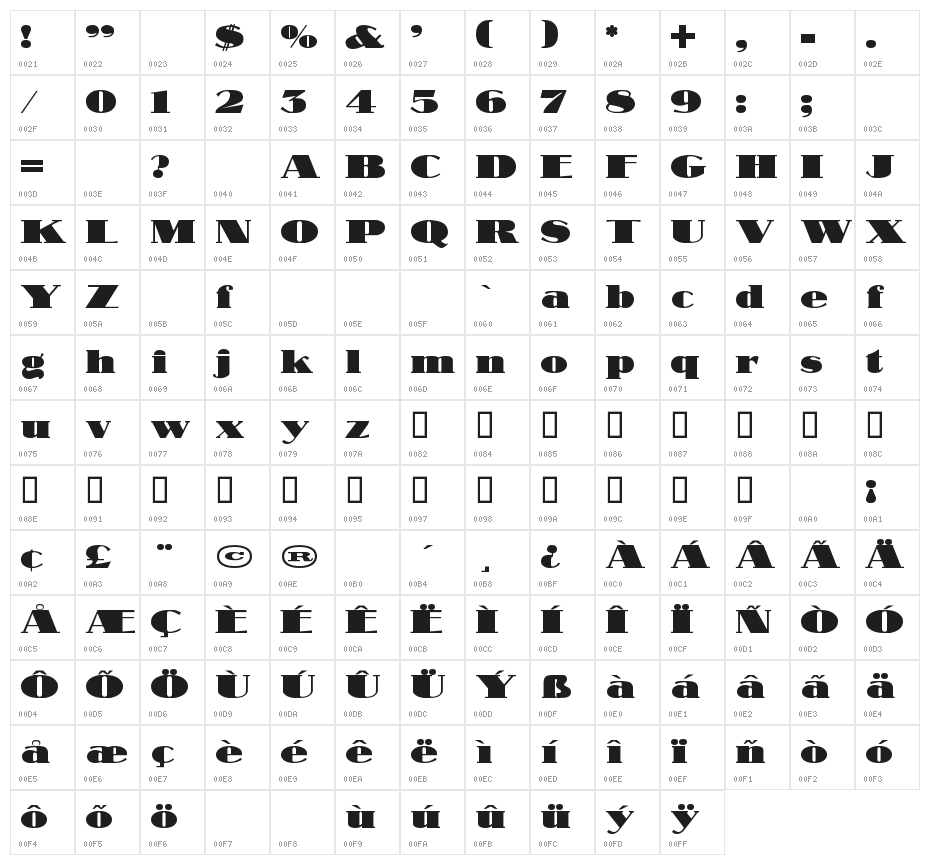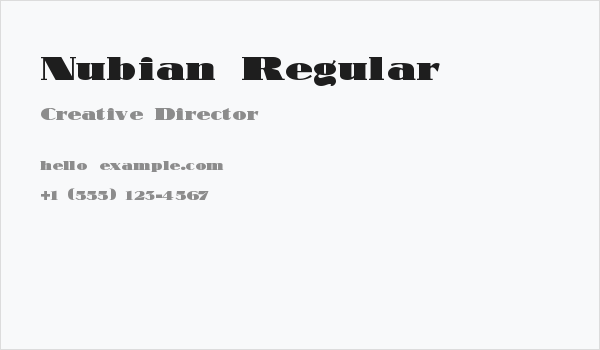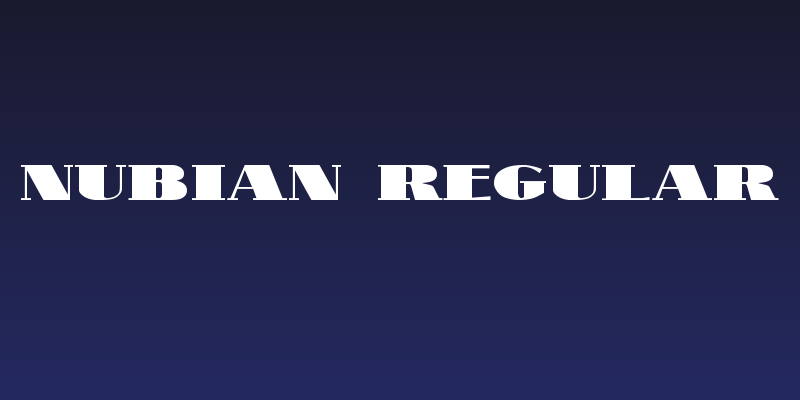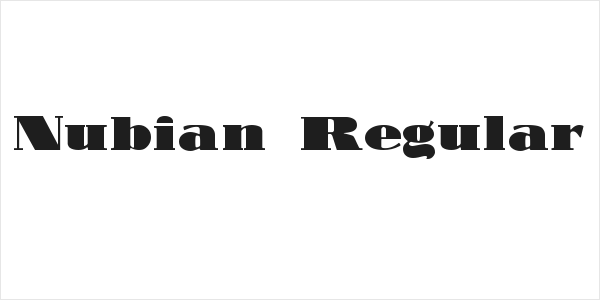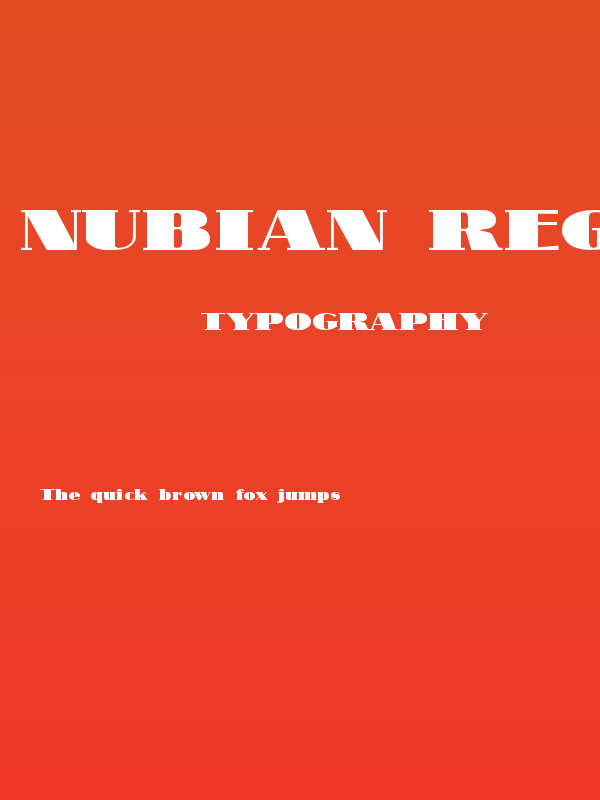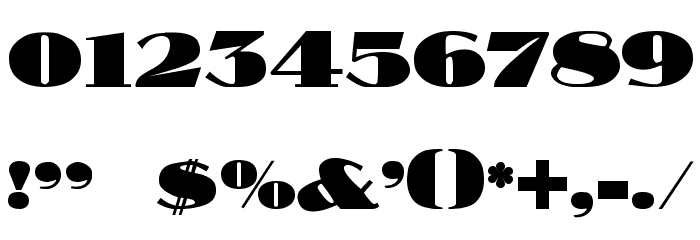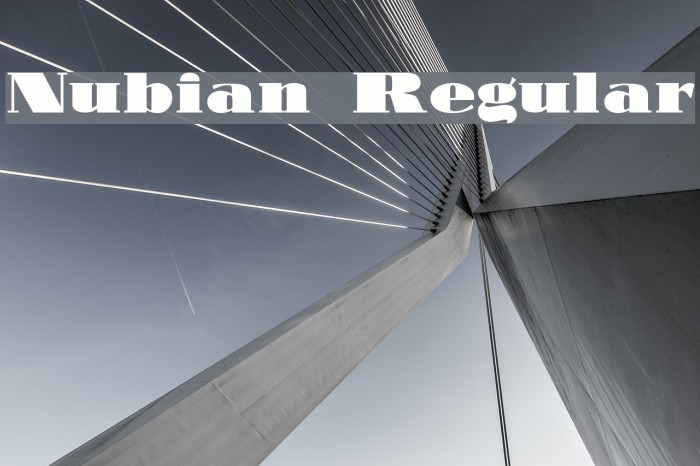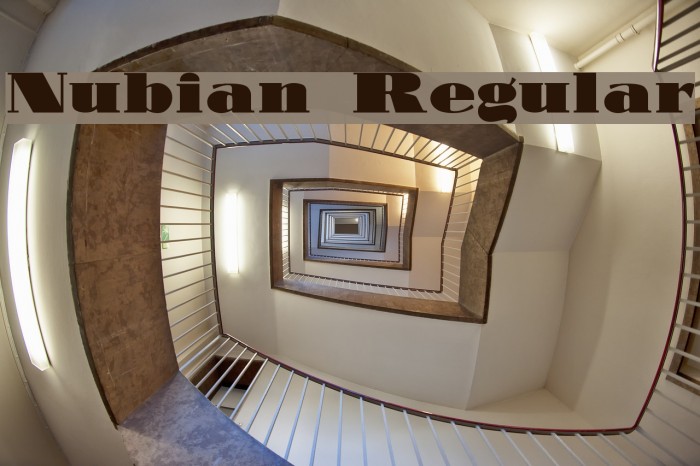
Nubian Regular Font
Nubian Regular Description
This font features a bold and striking design with thick, heavy strokes that create a strong visual impact. The characters are wide and have a distinct presence, making them ideal for attention-grabbing headlines and titles. The uppercase letters are particularly bold, while the lowercase letters maintain a consistent weight, ensuring readability. The numerals are equally robust, matching the overall boldness of the alphabet. Special characters are included, maintaining the same weight and style, which adds versatility to the font's use. The design is modern and decorative, suitable for projects that require a bold statement.
| Proposed Projects | Ideal for branding, poster design, advertising, and any project needing a strong visual impact. |